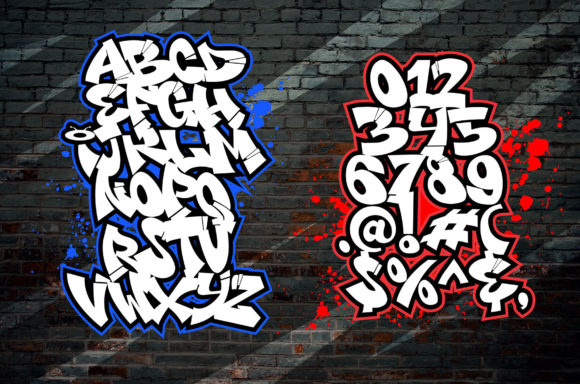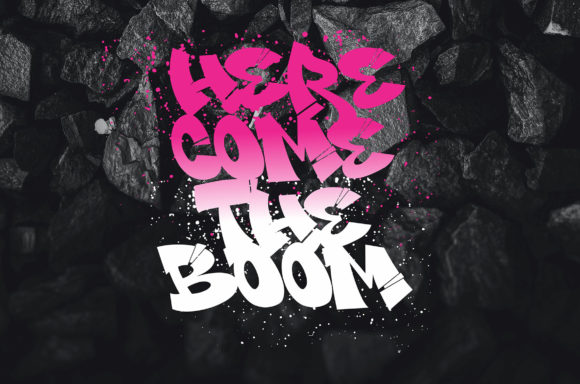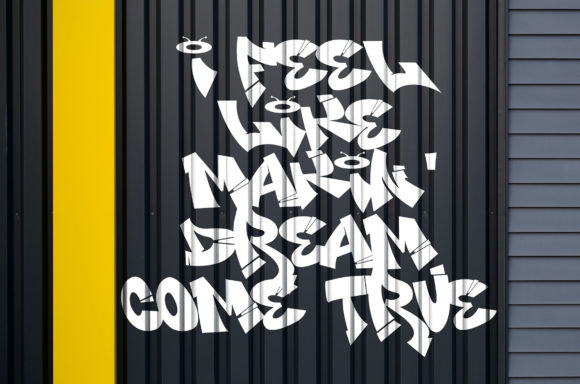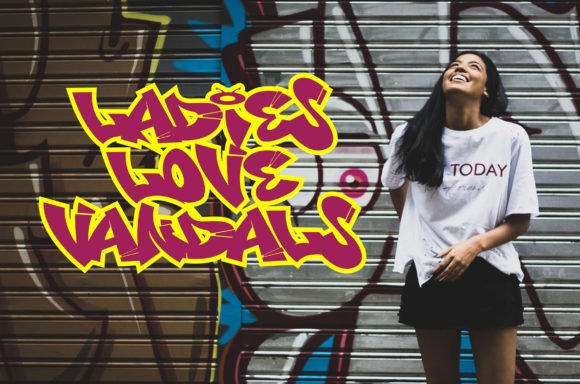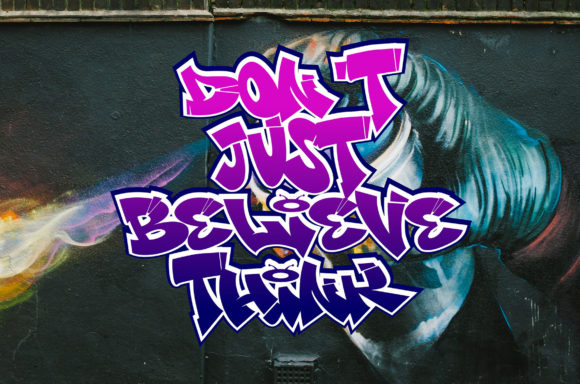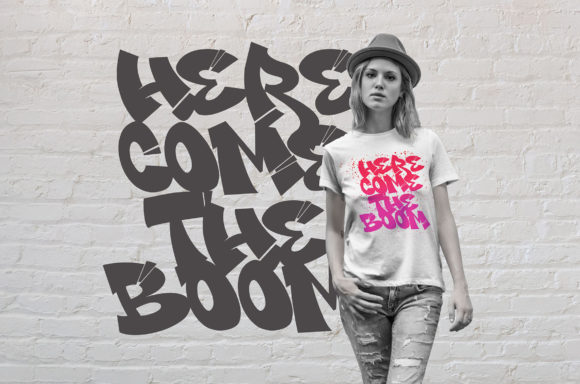
Introduction to Blue Monsta Font
Blue Monsta is a spectacular display font with a graffiti style.
It will elevate a wide range of design projects to the highest level, be it branding, headings, wedding designs, invitations, signatures, logotype, wall art illustration, apparel, labels, and much more .